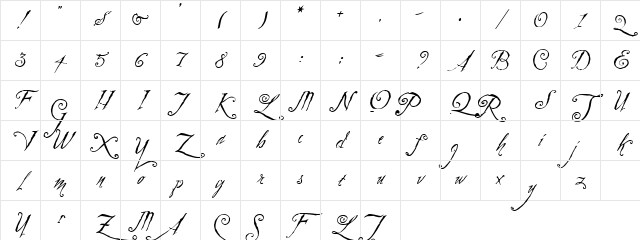
Zothique Regular
Design Context for Zothique
Zothique is a composed and adaptable typeface that performs quietly and consistently across a wide range of design contexts.